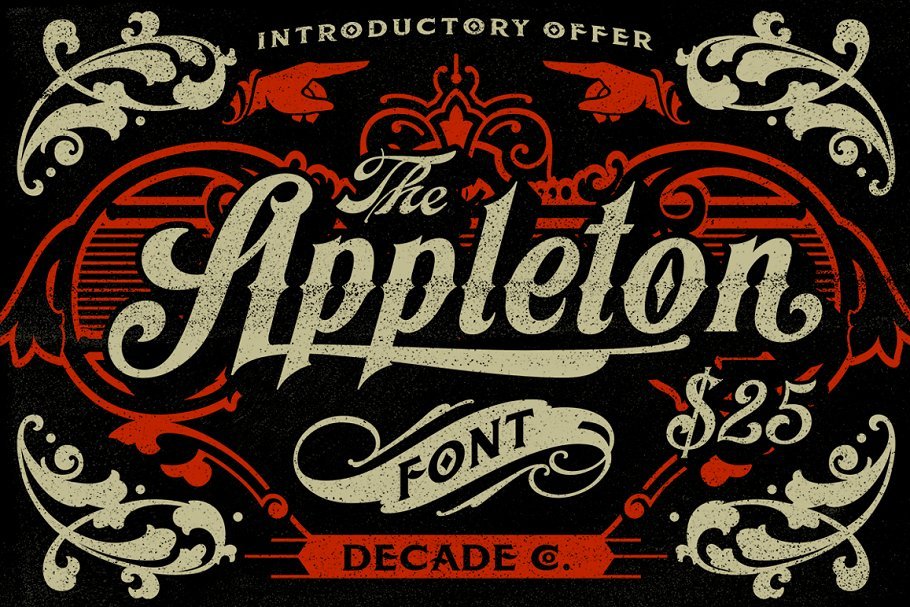
We had seen this typeface is being used by many designers for so long. The reason for that is the great swashes and stylistic that are present in this typeface
Greetings, everyone Today, we are thrilled to present to you the exquisite fancy typeface created and released by Spencer & Sons Co, known as the Appleton Font. We've noticed this typeface frequently used in various website headers.
We had seen this typeface is being used by many designers for so long. The reason for that is the great swashes and stylistic that are present in this typeface and also the multilingual aid that with the combination of seventies font makes this more vulnerable.
Appleton is one of the best fancy typefaces that was designed by Spencer & Sons Co.